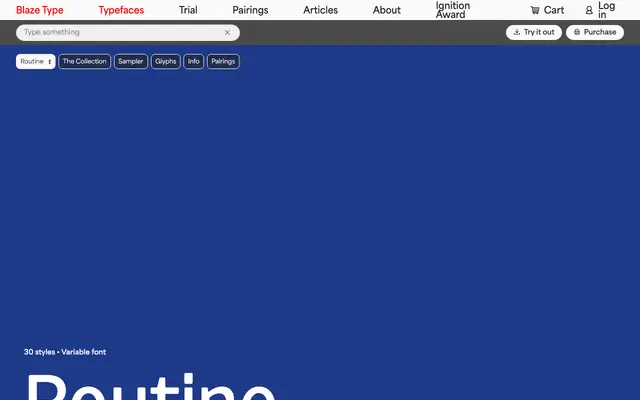
Routine
Blaze Type · Fred Wiltshire · 2023
A sans serif drawn from the inky, varied styles of late 19th-century French newspaper type, released by Fred Wiltshire in 2023 with 30 styles and a variable file.
The design takes cues from the broad range of sans serifs found in French newspaper printing of the 1880s and 1890s, carrying their soft joints and ink-trap character into a contemporary 30-style family spanning five weights with matching italics and width variants. Coverage extends to Extended Latin, Cyrillic and Greek, with stylistic sets and illustrative glyphs included alongside the core character set. The family is built to move between small text and large display use without switching families.
Described as drawing from French newspaper sans serifs of the late 19th century, with soft curves and ink-influenced features; sits in humanist sans territory given its warmth and organic quality rather than strict geometric or grotesque construction.